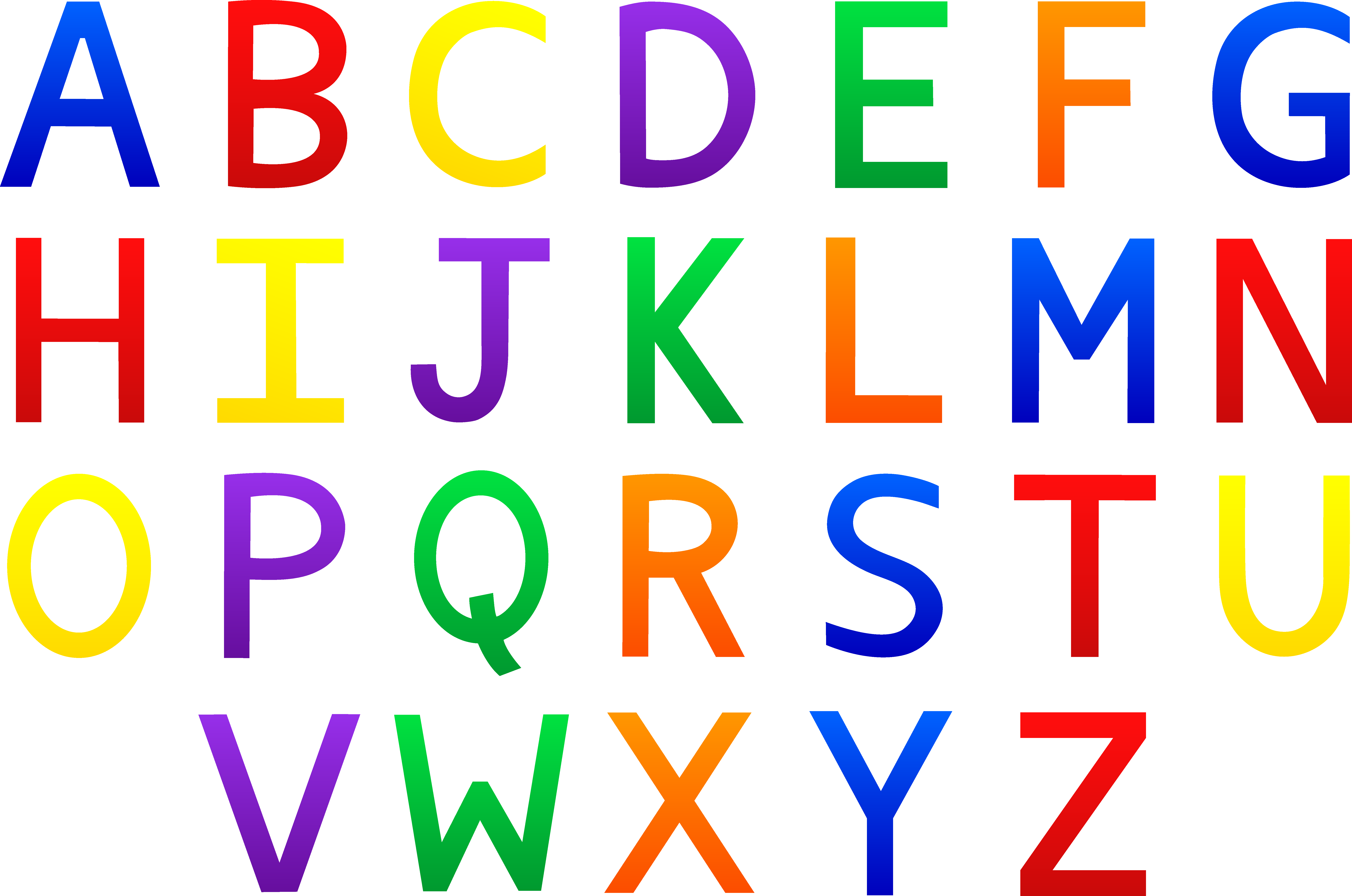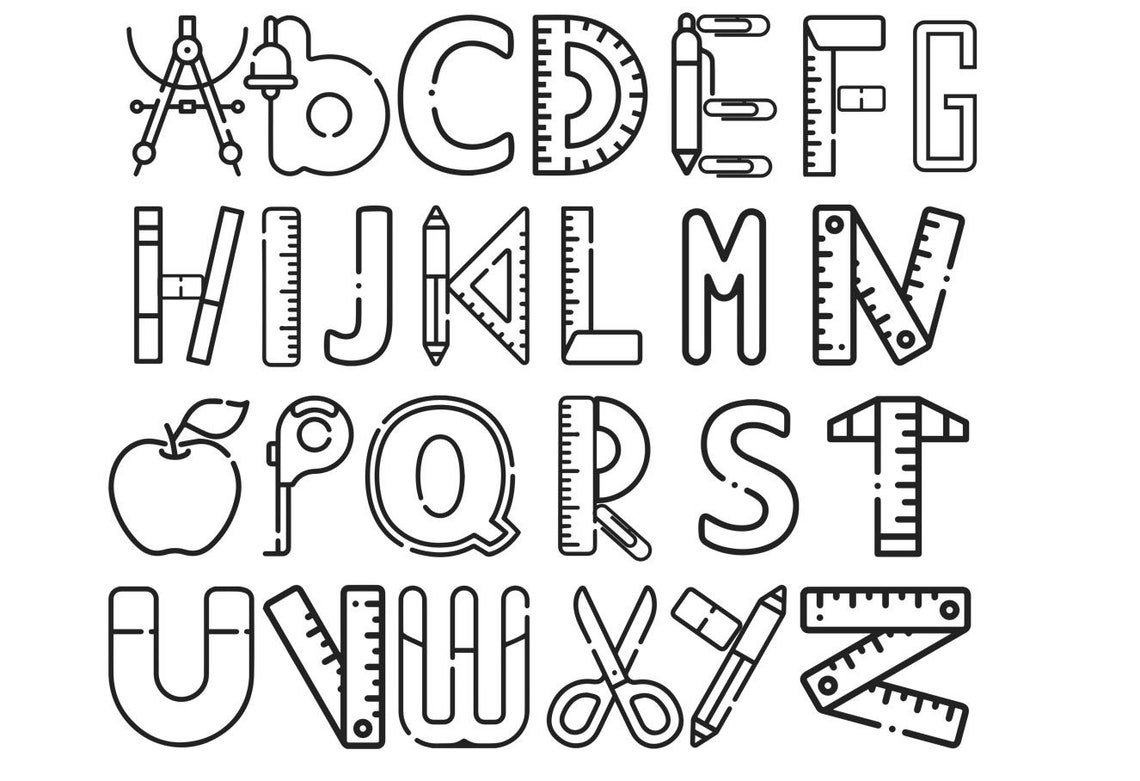
Abc Teacher Font
Abc Teacher Font - The font abcteacher can't be downloaded from fontpark.com. Here are 67 free fonts that were created by teachers and will help make your classroom activities bright, whimsical and add just the. Abcteacher font family designed by unknown designer has a total of 1 different styles. The font is only for commercial purposes only and you must be purchased. Click to find the best 171 free fonts in the teachers style. Boost your classroom creativity with our diverse range of free teacher fonts! You can download the abcteacher font to your computer. Perfectly tailored for engaging and interactive learning. Every font is free to download! The teachers font is an educational font family created for use by publishers, teachers, students and parents of children in grades k through 6.
Every font is free to download! The teachers font is an educational font family created for use by publishers, teachers, students and parents of children in grades k through 6. You can download the abcteacher font to your computer. Boost your classroom creativity with our diverse range of free teacher fonts! Click to find the best 171 free fonts in the teachers style. The font abcteacher can't be downloaded from fontpark.com. The font is only for commercial purposes only and you must be purchased. Perfectly tailored for engaging and interactive learning. Here are 67 free fonts that were created by teachers and will help make your classroom activities bright, whimsical and add just the. Abcteacher font family designed by unknown designer has a total of 1 different styles.
Abcteacher font family designed by unknown designer has a total of 1 different styles. The teachers font is an educational font family created for use by publishers, teachers, students and parents of children in grades k through 6. Click to find the best 171 free fonts in the teachers style. Boost your classroom creativity with our diverse range of free teacher fonts! The font abcteacher can't be downloaded from fontpark.com. The font is only for commercial purposes only and you must be purchased. Every font is free to download! Perfectly tailored for engaging and interactive learning. You can download the abcteacher font to your computer. Here are 67 free fonts that were created by teachers and will help make your classroom activities bright, whimsical and add just the.
You can download the abcteacher font to your computer. The teachers font is an educational font family created for use by publishers, teachers, students and parents of children in grades k through 6. The font is only for commercial purposes only and you must be purchased. Perfectly tailored for engaging and interactive learning. Click to find the best 171 free.
You can download the abcteacher font to your computer. Abcteacher font family designed by unknown designer has a total of 1 different styles. Boost your classroom creativity with our diverse range of free teacher fonts! Every font is free to download! Perfectly tailored for engaging and interactive learning.
The font is only for commercial purposes only and you must be purchased. Boost your classroom creativity with our diverse range of free teacher fonts! Click to find the best 171 free fonts in the teachers style. The font abcteacher can't be downloaded from fontpark.com. The teachers font is an educational font family created for use by publishers, teachers, students.
The teachers font is an educational font family created for use by publishers, teachers, students and parents of children in grades k through 6. Abcteacher font family designed by unknown designer has a total of 1 different styles. Click to find the best 171 free fonts in the teachers style. Every font is free to download! Perfectly tailored for engaging.
Here are 67 free fonts that were created by teachers and will help make your classroom activities bright, whimsical and add just the. The teachers font is an educational font family created for use by publishers, teachers, students and parents of children in grades k through 6. You can download the abcteacher font to your computer. Perfectly tailored for engaging.
11 ABC Teacher Font Free Download Images Free Bubble Letter Fonts for
Click to find the best 171 free fonts in the teachers style. Every font is free to download! Boost your classroom creativity with our diverse range of free teacher fonts! Here are 67 free fonts that were created by teachers and will help make your classroom activities bright, whimsical and add just the. You can download the abcteacher font to.
Svg Png Alphabet TEACHER Svg KINDERGARTEN Teacher Svg Etsy Denmark
Every font is free to download! Perfectly tailored for engaging and interactive learning. Boost your classroom creativity with our diverse range of free teacher fonts! The font abcteacher can't be downloaded from fontpark.com. Click to find the best 171 free fonts in the teachers style.
free ABC Teacher fonts download Teacher fonts, Free teacher fonts
Every font is free to download! The teachers font is an educational font family created for use by publishers, teachers, students and parents of children in grades k through 6. You can download the abcteacher font to your computer. Boost your classroom creativity with our diverse range of free teacher fonts! The font is only for commercial purposes only and.
A Collection Of 25 Terrific Teacher Fonts Teaching Expertise
You can download the abcteacher font to your computer. Boost your classroom creativity with our diverse range of free teacher fonts! Perfectly tailored for engaging and interactive learning. The font is only for commercial purposes only and you must be purchased. The teachers font is an educational font family created for use by publishers, teachers, students and parents of children.
AbcTeacher Font Download Free for Desktop & Webfont
Boost your classroom creativity with our diverse range of free teacher fonts! Click to find the best 171 free fonts in the teachers style. You can download the abcteacher font to your computer. The teachers font is an educational font family created for use by publishers, teachers, students and parents of children in grades k through 6. The font abcteacher.
Abcteacher Font Family Designed By Unknown Designer Has A Total Of 1 Different Styles.
You can download the abcteacher font to your computer. Perfectly tailored for engaging and interactive learning. The font abcteacher can't be downloaded from fontpark.com. Every font is free to download!
The font is only for commercial purposes only and you must be purchased. Click to find the best 171 free fonts in the teachers style. Here are 67 free fonts that were created by teachers and will help make your classroom activities bright, whimsical and add just the. The teachers font is an educational font family created for use by publishers, teachers, students and parents of children in grades k through 6.